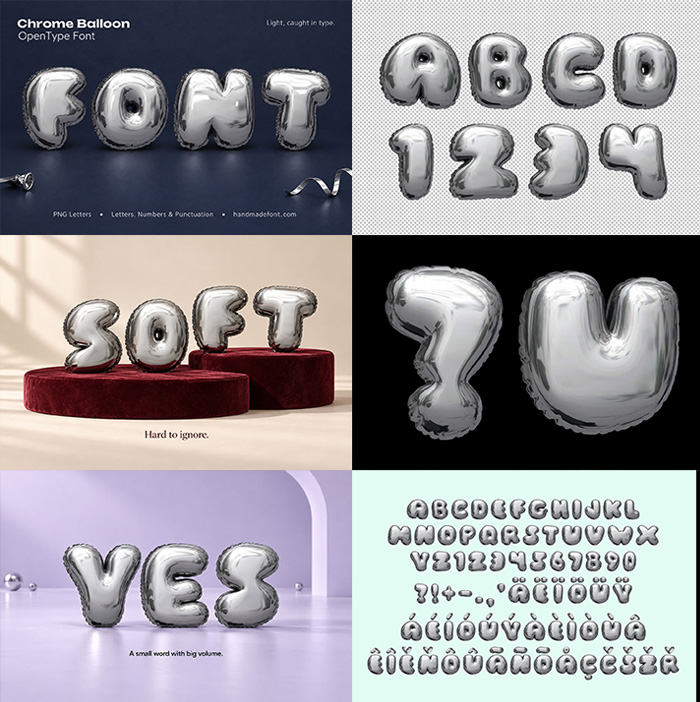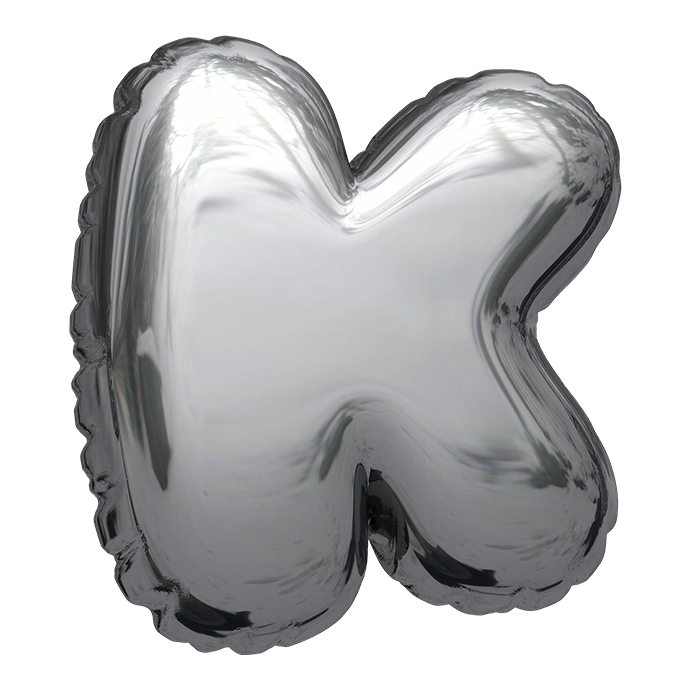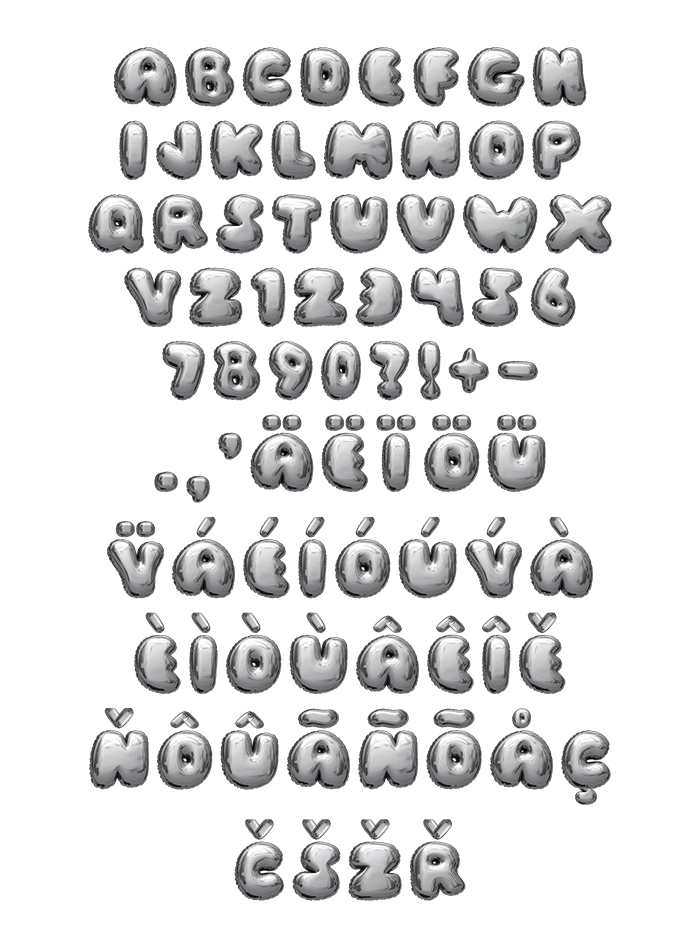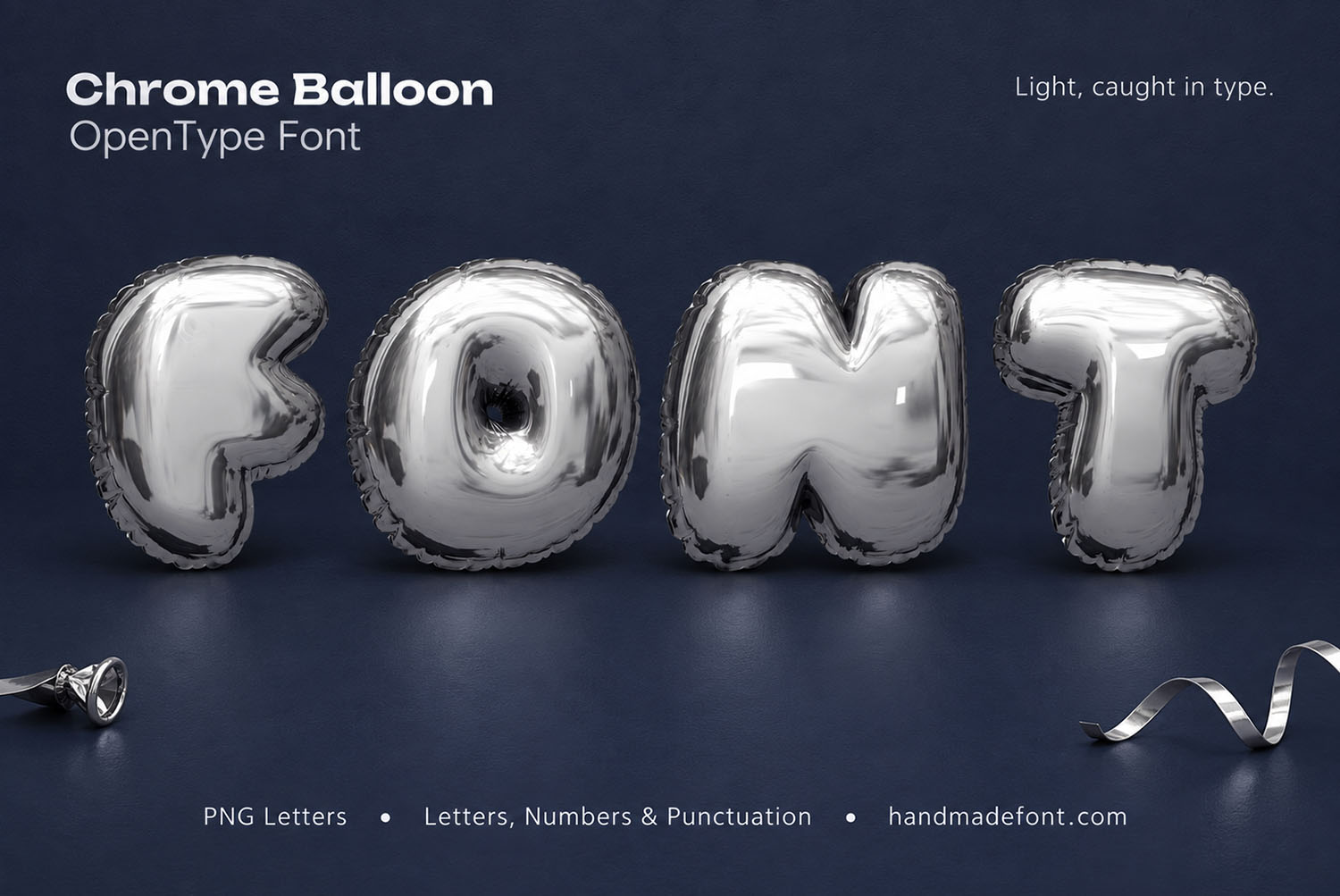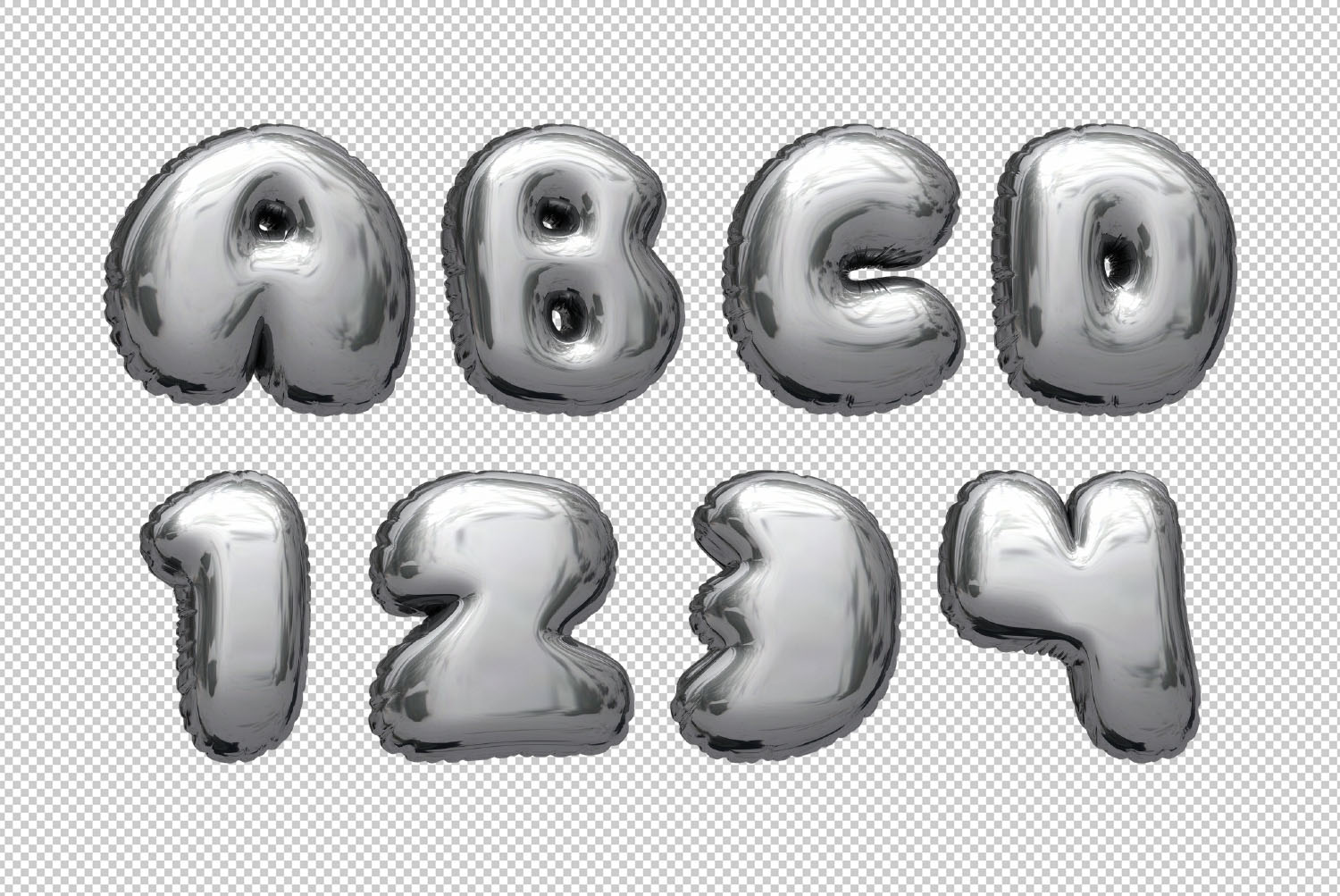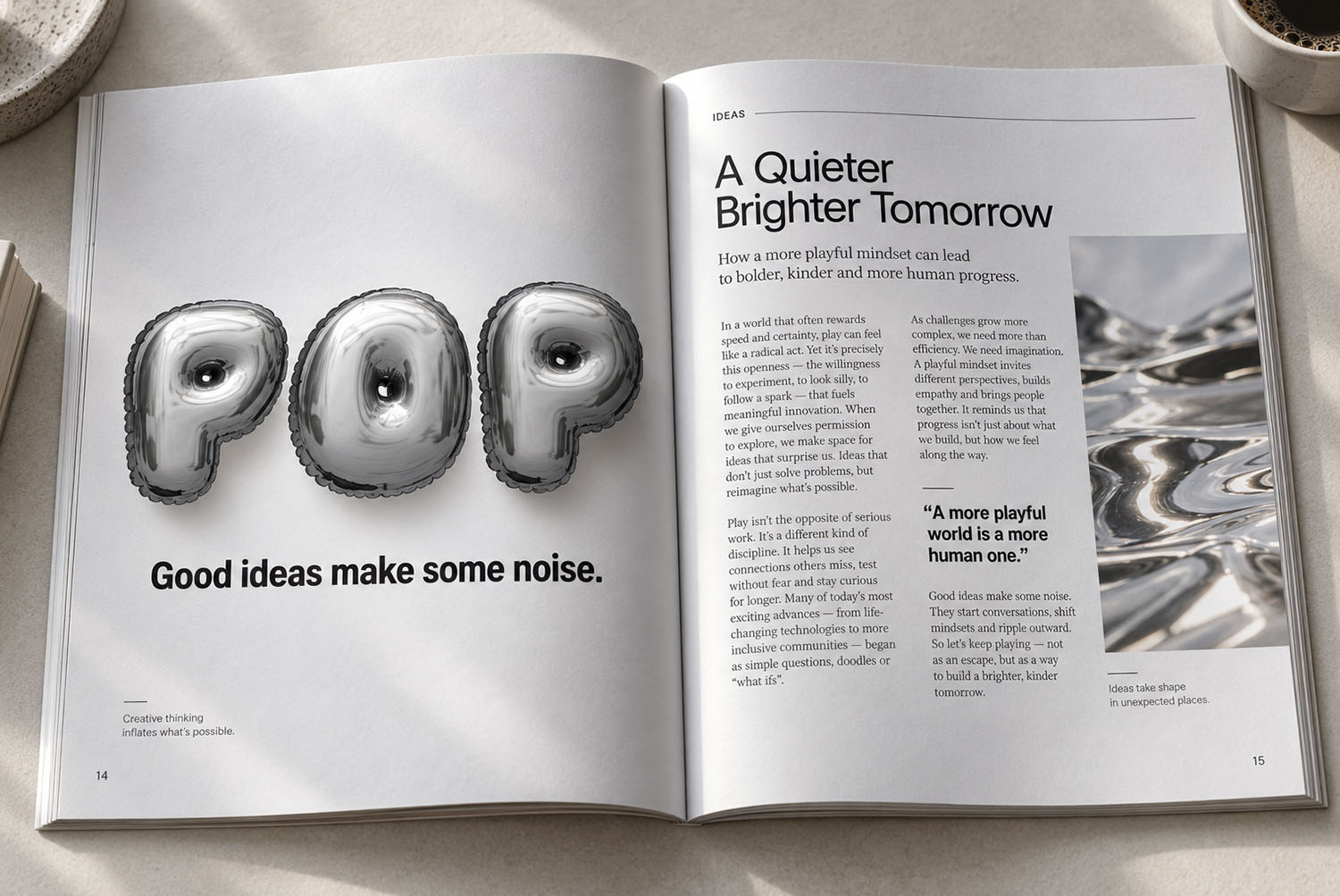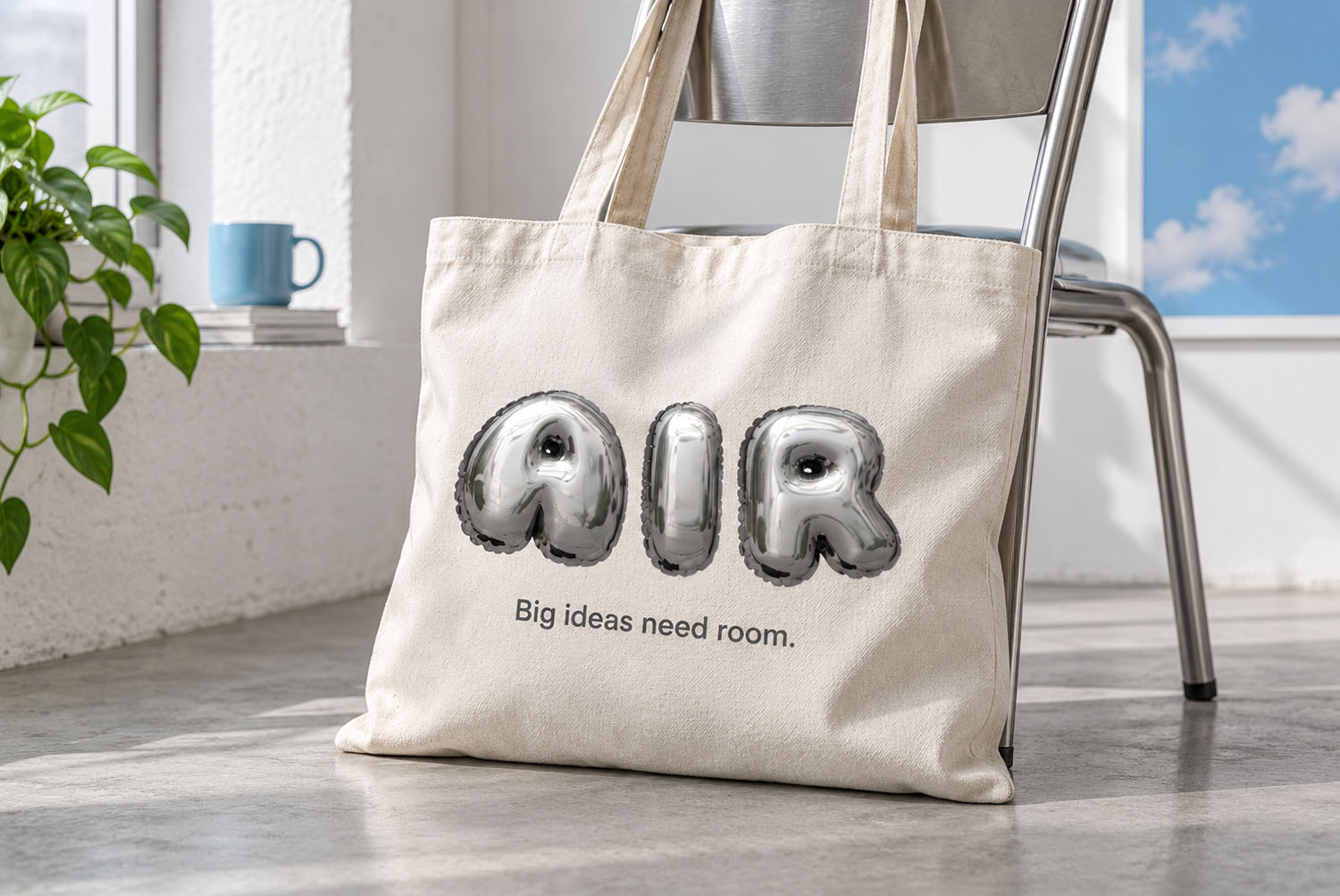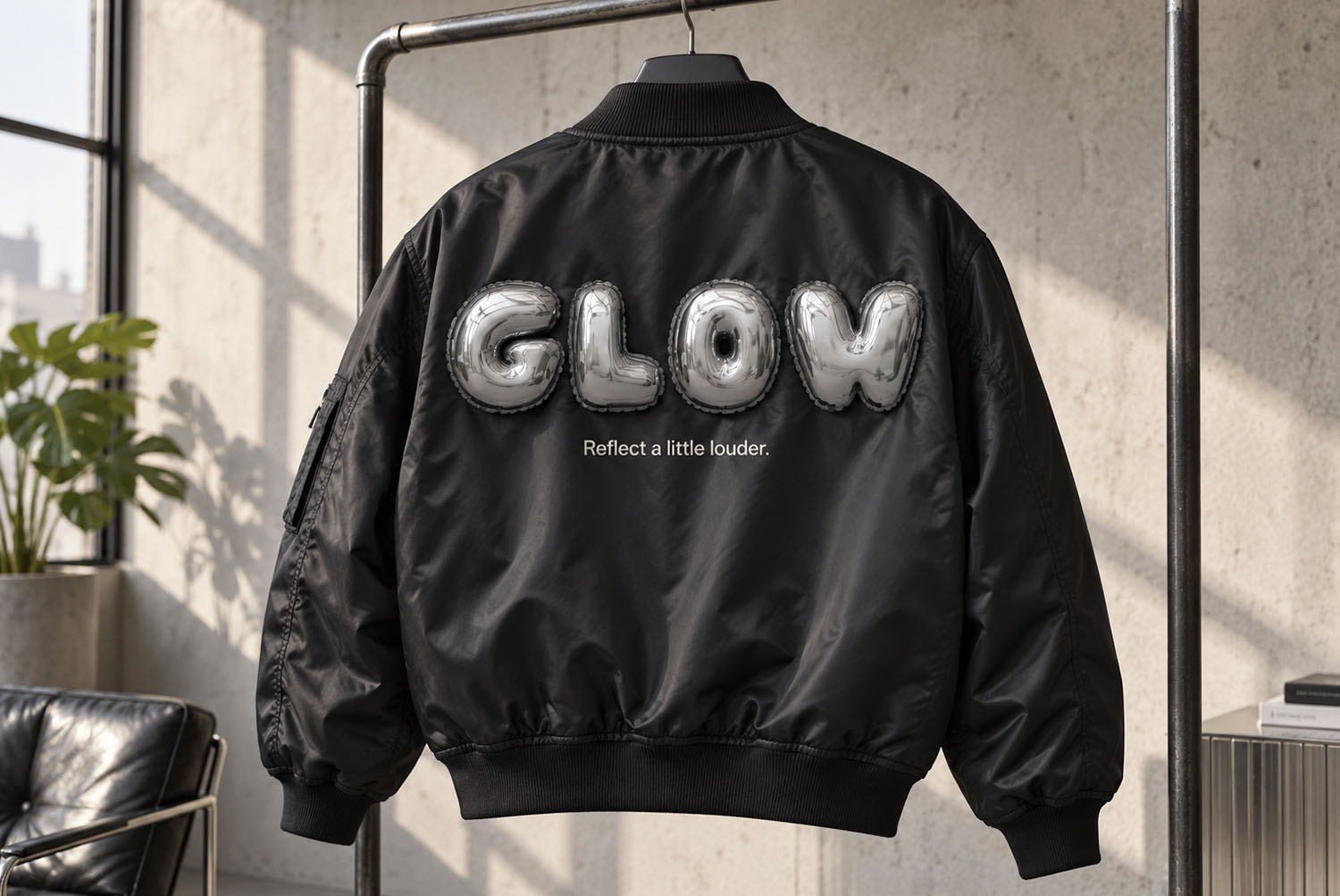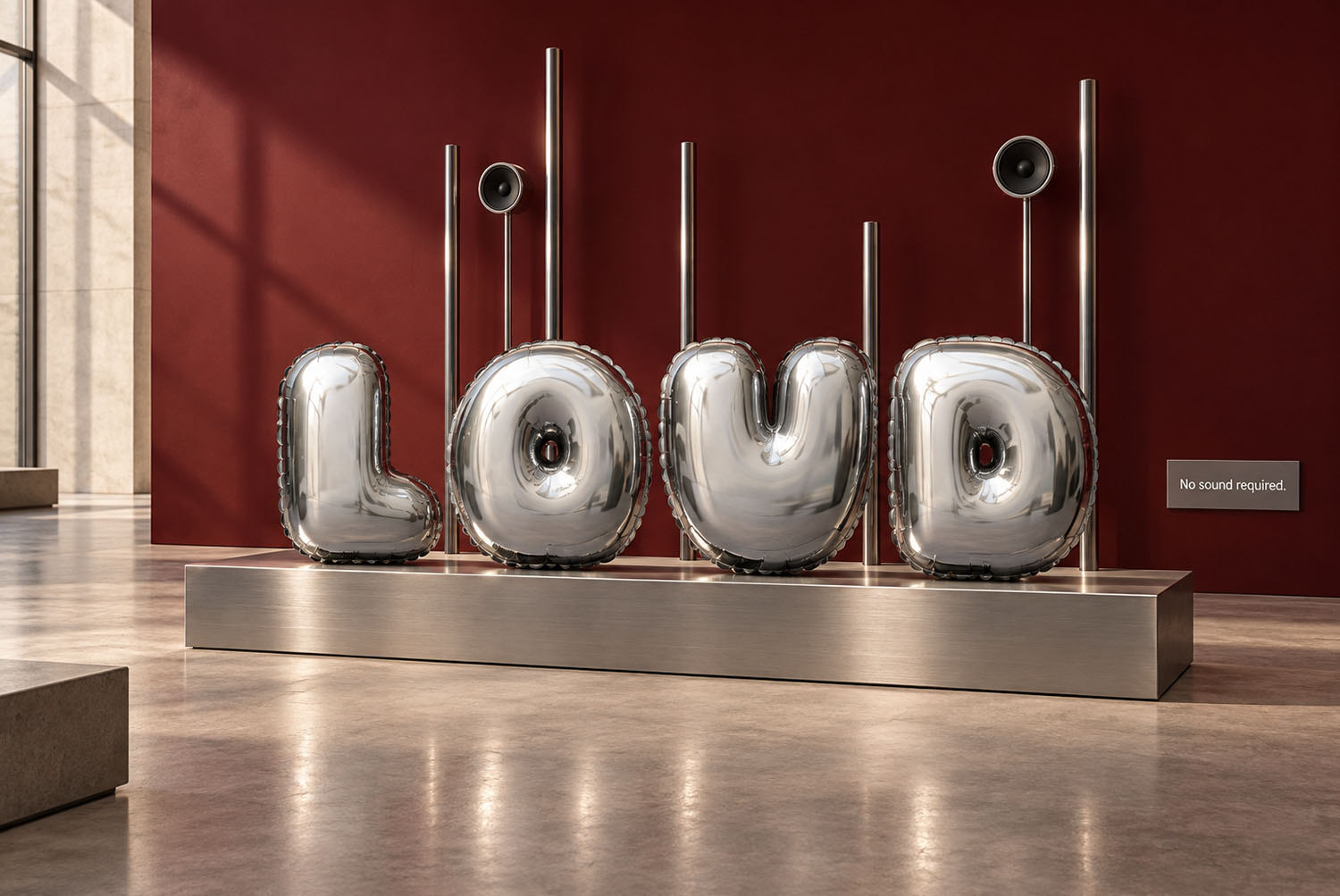
Chrome Balloon Font. Mirror-Silver Inflated Letters
Mirror-chrome capitals blown up like foil party balloons, with a crimped weld running round every edge and dark round counters punched through the middle. The surface reflects whatever sits behind it, so the same word changes character with the background. Comes as a working OTF plus separate transparent PNG letters, numbers, punctuation and a full run of accents.
Chrome Balloon Font Makes the Background Part of the Type
Every capital carries a true mirror finish, so it never holds one colour for long. Put a word on deep navy and the strokes turn cold steel. Move the same word onto mint green, and the bellies pick up that green instead. Because the surface reflects rather than prints, each layout ends up with a slightly different alphabet. Naturally that makes the background a real decision here. So the Chrome Balloon Font behaves less like type and more like a prop you light.
A Crimped Weld Runs Round Every Letter
Look along the edge of any capital and the crimp shows immediately. That scalloped ridge copies the heat seal on a real foil balloon, so nothing here reads as drawn. Counters also come out as dark round holes, which keeps A and R legible at small sizes. Meanwhile a thin ribbon curls under some of them. Above all, the highlights land where a photographer would put them. Of course that is what stops the whole set looking like plastic.
Animated letter of the Chrome Balloon Font turning on a transparent background
Parties Are the Obvious Job, Though Hardly the Only One
Balloons suggest birthdays, so the Chrome Balloon Font handles that work without any help from you. Our own mockups push it somewhere colder, though. One puts PARTY on a wet night billboard, while another runs POP across a magazine spread. GLOW rides the back of a black bomber jacket, while LOUD stands on steel poles in a gallery. Because the finish is metal rather than latex, the letters hold their nerve in grown-up work. Music covers, beauty packaging and club posters all suit it, then.
The word FONT set in the Chrome Balloon Font on deep navy with a ribbon at the foot
The word FONT set in the Chrome Balloon Font on a lilac background beside the file list
Alphabet of the Chrome Balloon Font laid out on a pale mint background
Separate transparent PNG letters and numbers of the Chrome Balloon Font
Punctuation and the letter U of the Chrome Balloon Font on black
The word PARTY in the Chrome Balloon Font on a city billboard after rain
Magazine spread with a POP headline set in the Chrome Balloon Font
Canvas tote bag printed with the word AIR in the Chrome Balloon Font
Black bomber jacket carrying the word GLOW in the Chrome Balloon Font
The word LOUD in the Chrome Balloon Font mounted on steel poles against a red wall
The word SHINE in the Chrome Balloon Font lit on a dark studio stage
The word SOFT in the Chrome Balloon Font standing on dark red velvet podiums
The word OOPS in the Chrome Balloon Font balanced on a plank against mint green
The word YES in the Chrome Balloon Font in a pale lilac room
Framed poster with the word WOW in the Chrome Balloon Font above a sideboard